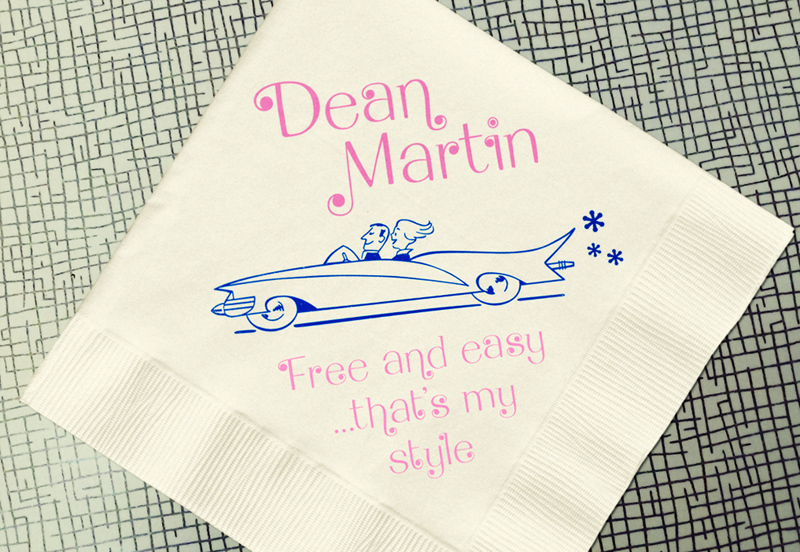
Dean Martin Regular
This font is traced from an old typefacebook. I added the missing swashy characters and punctuations. For best results alternate both versions. This font Freeware for personal use. If it is for commercial use then this font is Donationware through PayPal: turoturom@yahoo.es. If you don't have a PayPal drop me a line.
This font is traced from an old typefacebook.